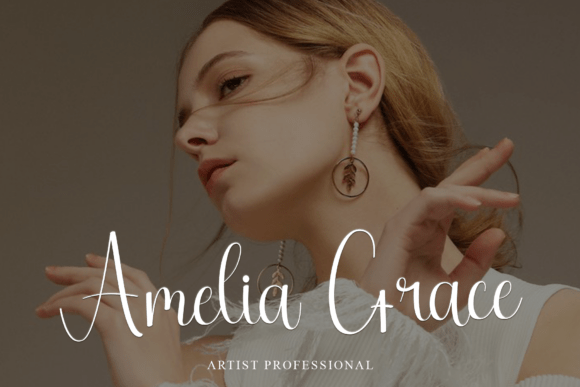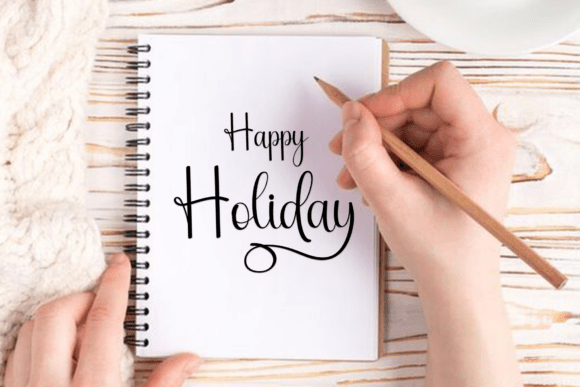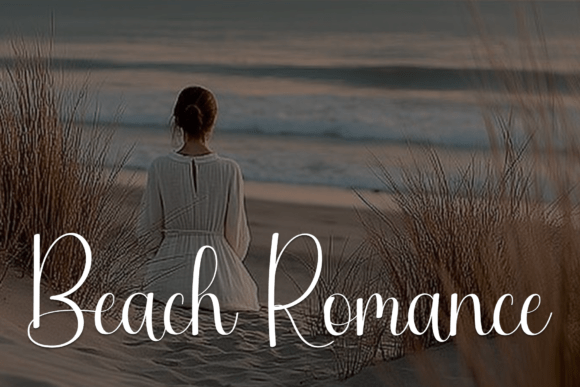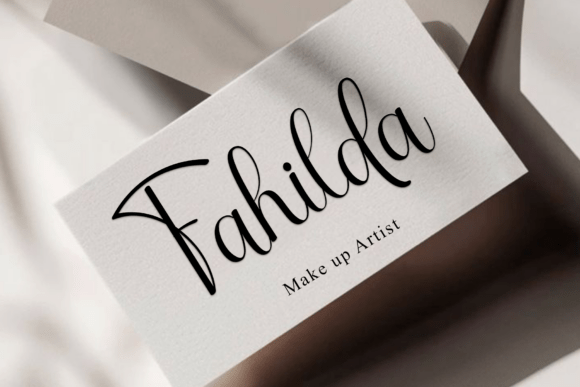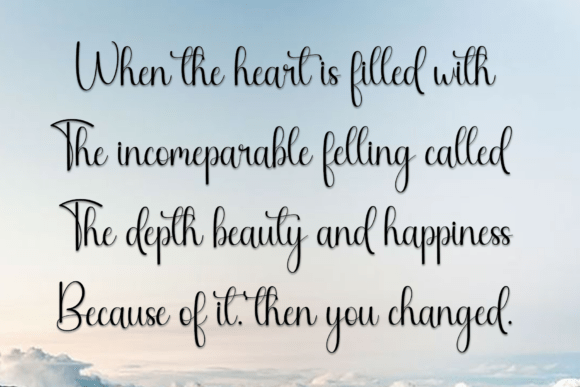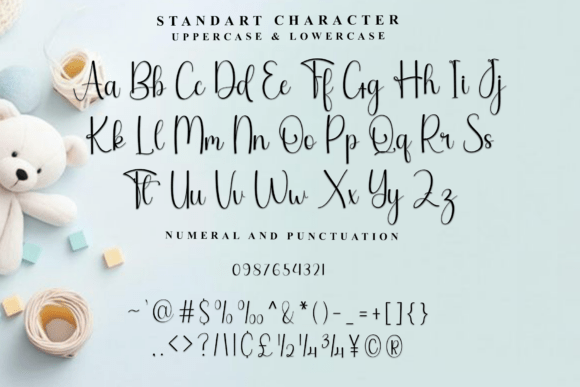
Introducing Handwriting Creative Font: Elevate Your Designs with Elegance
Are you a designer or crafter looking for a font that exudes elegance and sophistication? Look no further than Handwriting Creative Font, a delicate and elegant handwritten font that is sure to capture your heart. With its distinct and well-balanced letters, this font is a masterpiece that can elevate your designs to new heights.
The Beauty of Handwriting Creative Font
Handwriting Creative Font is a versatile and stylish font that is perfect for a wide range of design projects. Its unique and flowing script is reminiscent of handwritten calligraphy, making it ideal for creating beautiful and eye-catching designs. The font’s delicate and elegant appearance is sure to add a touch of sophistication to any project, from wedding invitations and branding materials to social media graphics and more.
Distinct and Well-Balanced Letters
One of the standout features of Handwriting Creative Font is its distinct and well-balanced letters. Each letter is carefully crafted to ensure that it is proportional and visually appealing, making it easy to read and understand. The font’s well-balanced letters also make it perfect for use in a variety of design applications, from headings and titles to body text and more.
Incredibly Versatile Style
Handwriting Creative Font is incredibly versatile, making it perfect for use in a wide range of design projects. Whether you’re creating a wedding invitation, a social media graphic, or a branding material, this font is sure to impress. Its elegant and sophisticated appearance makes it ideal for use in:
Create Spectacular Designs with Handwriting Creative Font
With Handwriting Creative Font, you can create spectacular designs that are sure to capture the attention of your audience. Its elegant and sophisticated appearance makes it perfect for use in a wide range of design projects, from elegant and refined to playful and creative. Whether you’re a designer, crafter, or DIY enthusiast, this font is sure to inspire you to create something truly special.
Why Choose Handwriting Creative Font?
So why choose Handwriting Creative Font over other fonts? Here are just a few reasons why this font stands out:
- Elegant and sophisticated appearance: Handwriting Creative Font has a unique and elegant appearance that is sure to add a touch of sophistication to any design project.
- Versatile and flexible: This font is incredibly versatile and can be used in a wide range of design applications, from headings and titles to body text and more.
- Easy to read and understand: The font’s well-balanced letters make it easy to read and understand, making it perfect for use in a variety of design projects.
- Unique and creative: Handwriting Creative Font is a unique and creative font that is sure to inspire you to create something truly special.
In conclusion, Handwriting Creative Font is a delicate and elegant handwritten font that is sure to capture your heart. With its distinct and well-balanced letters, incredibly versatile style, and elegant and sophisticated appearance, this font is perfect for use in a wide range of design projects. Whether you’re a designer, crafter, or DIY enthusiast, Handwriting Creative Font is sure to inspire you to create something truly special. So why wait? Download Handwriting Creative Font today and start creating spectacular designs that are sure to impress!